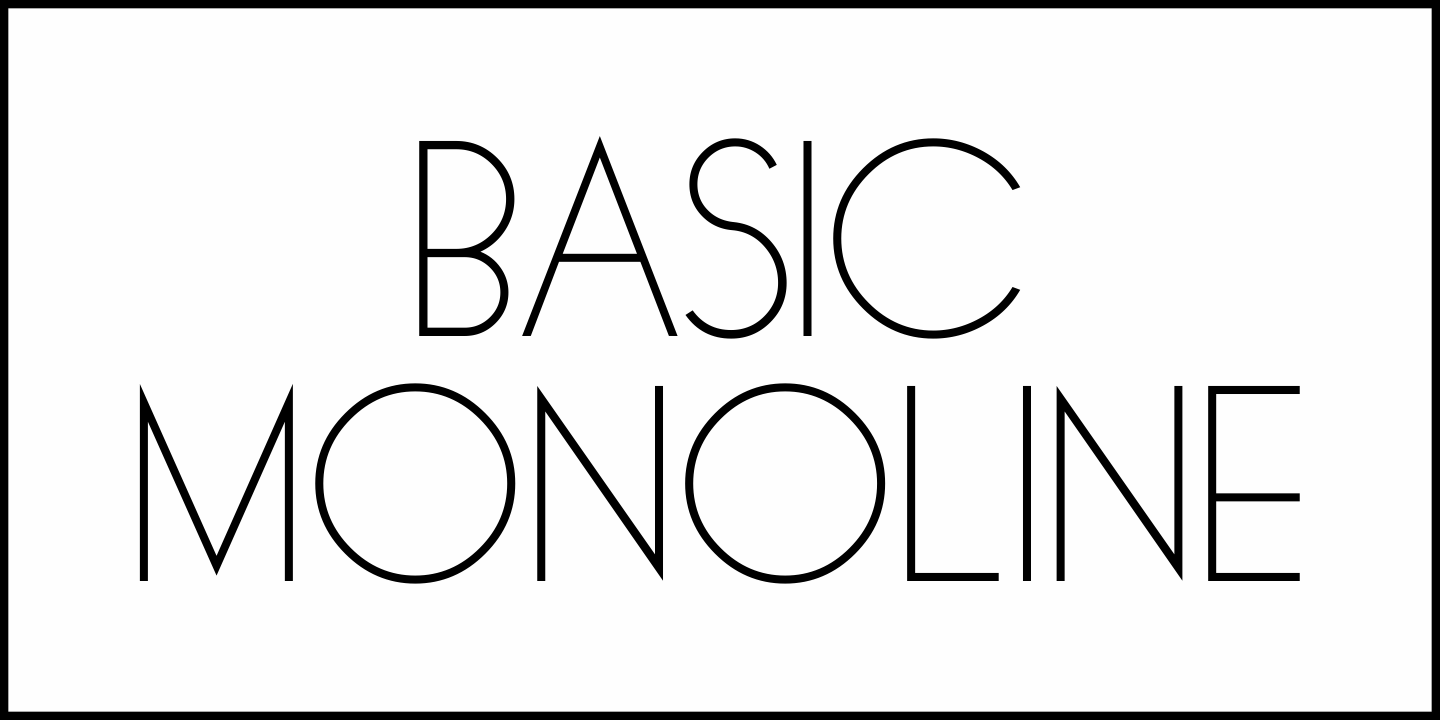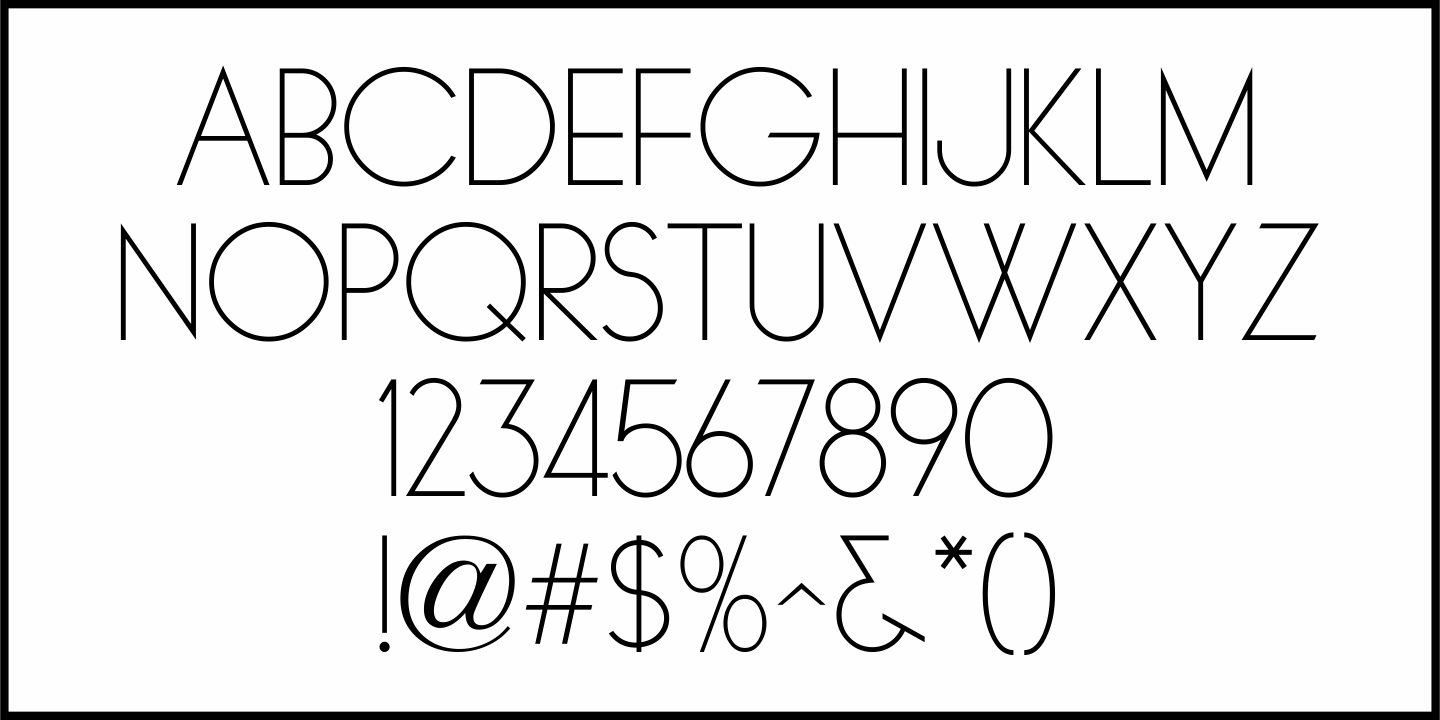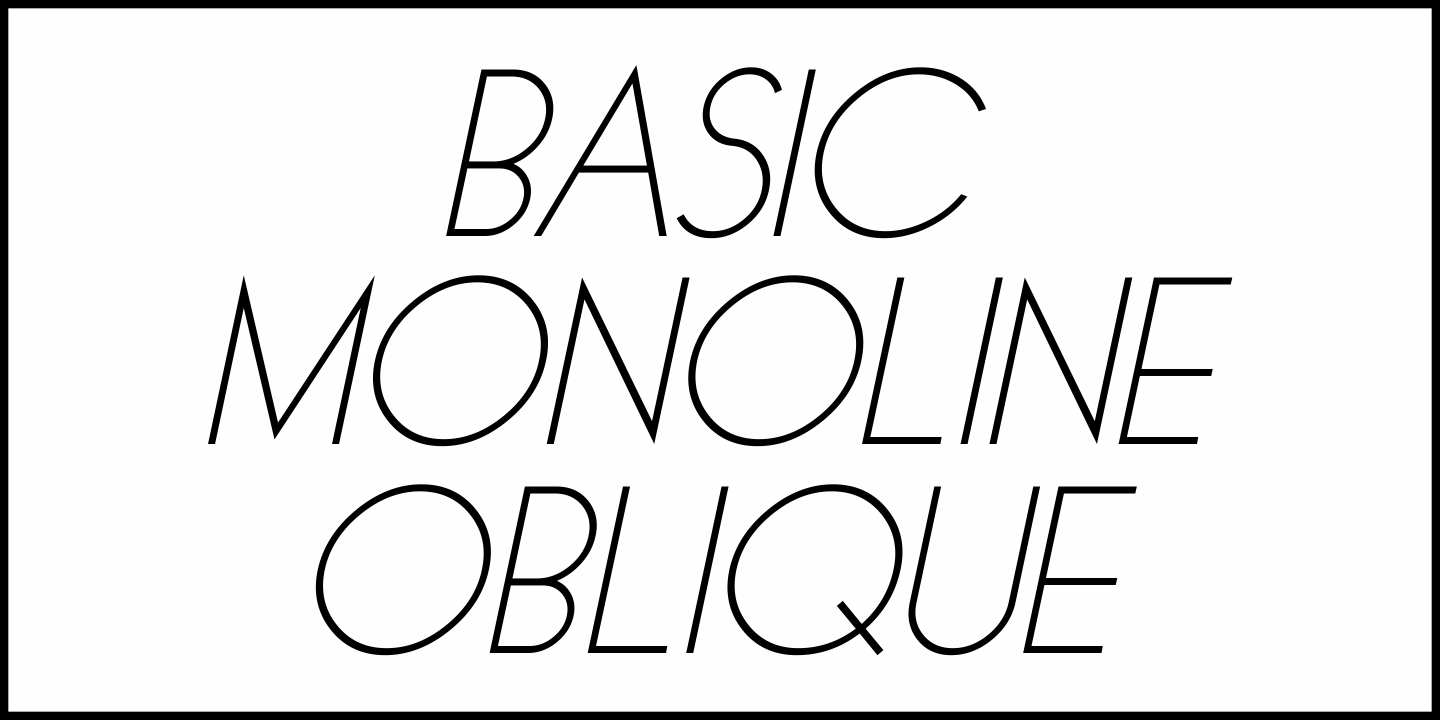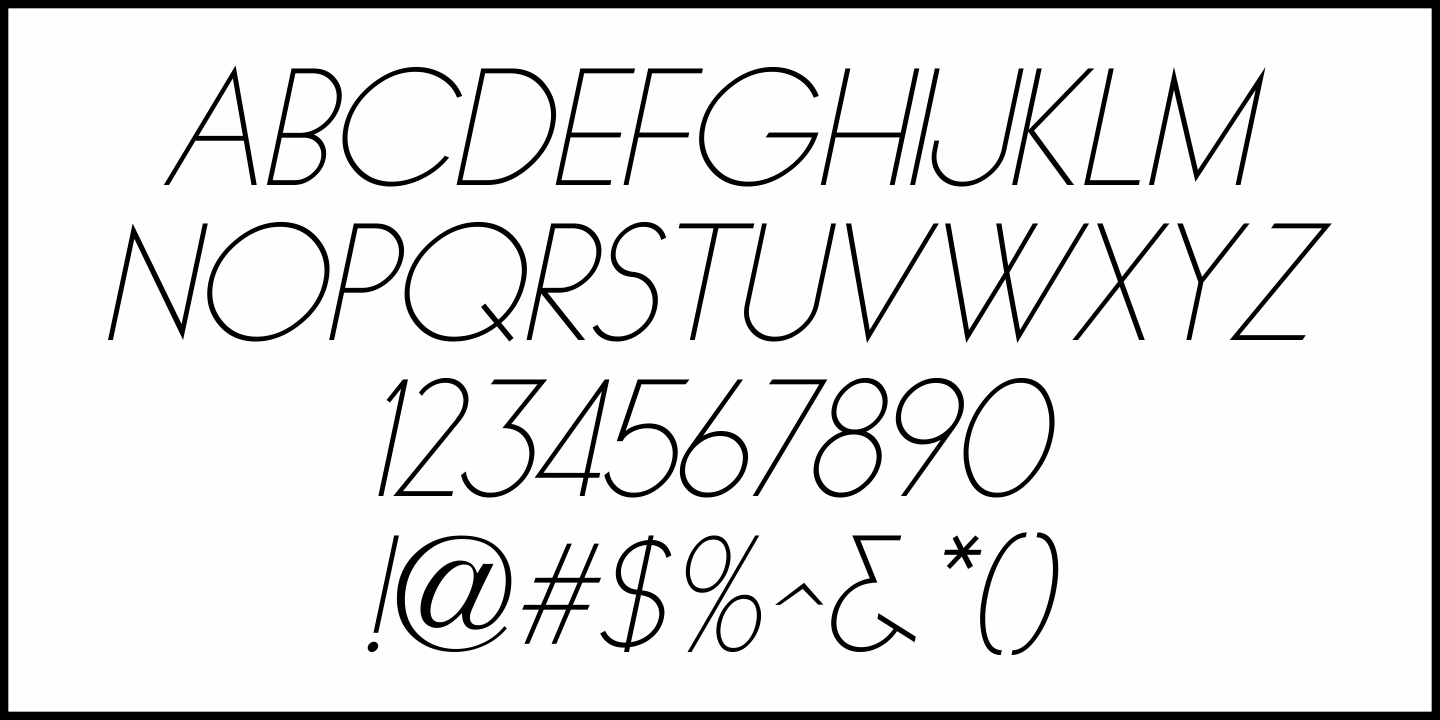
Basic Monoline
On page 34 of the 1930 Samuel Welo publication 'Lettering - Practical and Foreign” is a simple, basic Art Deco monoline design.
This hand lettered type style is now digitally available as Basic Monoline JNL in both regular and oblique versions.